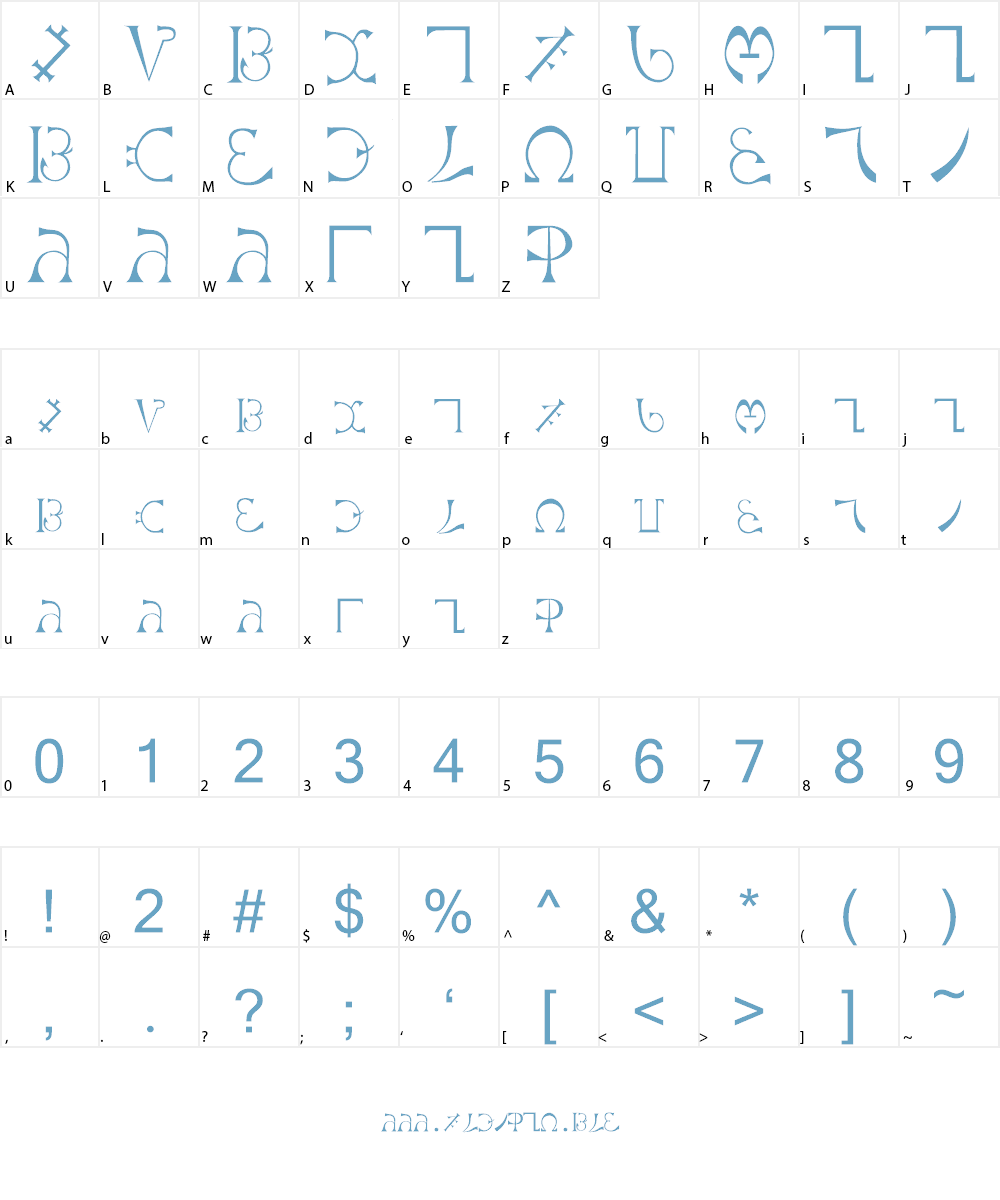
Enochian is a script that dates back to the 16th century and was used by Dr. John Dee and Sir Edward Kelley in their communications with sundry spirits, in the course of ceremonies which were performed under the order of Queen Elizabeth the First. I used the specimen given in the "Equinox" [ed. Aleister Crowley] as a model for the design and only a few liberties have been taken with its alphabetic order or design. The "Equinox" is readily available for inspection should the more curious wish to compare my design with the one given in this tome.